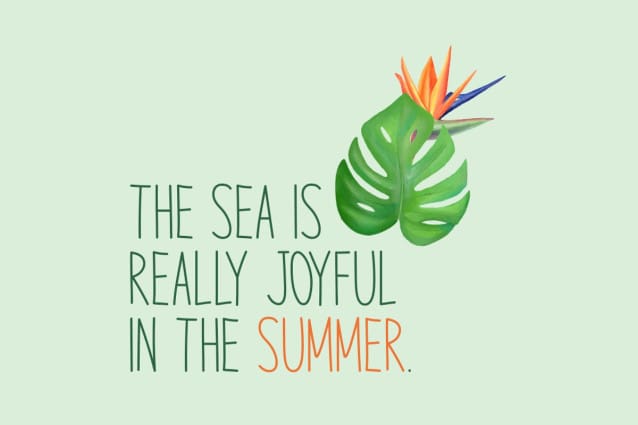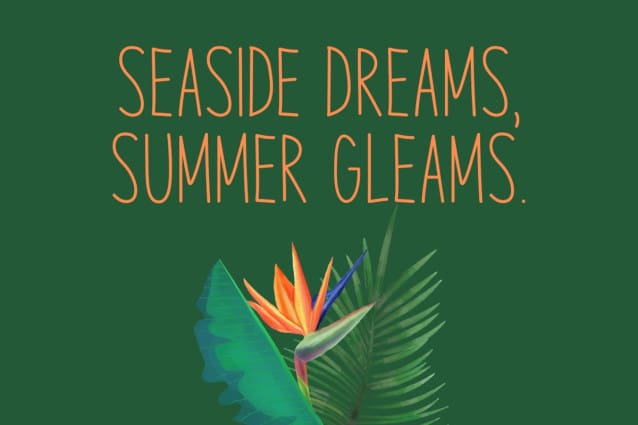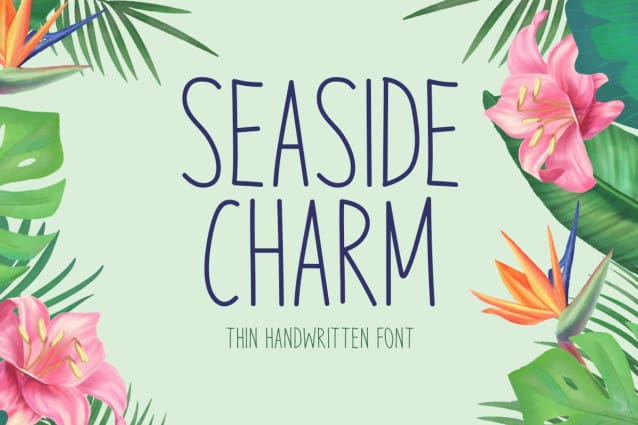
Seaside Charm Font
Seaside Charm Font is an incomparable and simple handwritten font. It can easily be matched to an incredibly large set of projects, so add it to your creative ideas and notice how it makes them stand out!